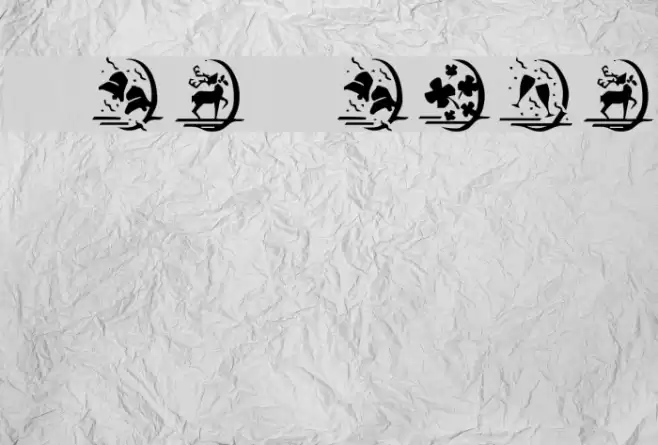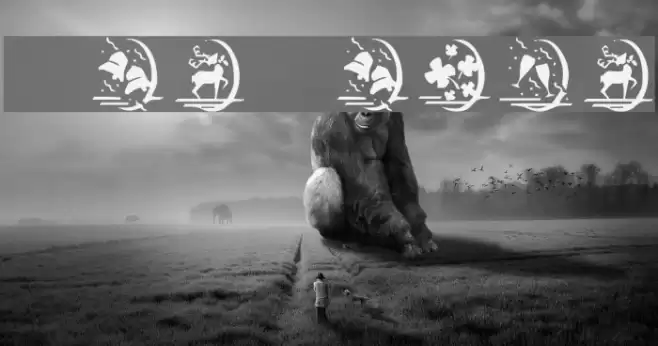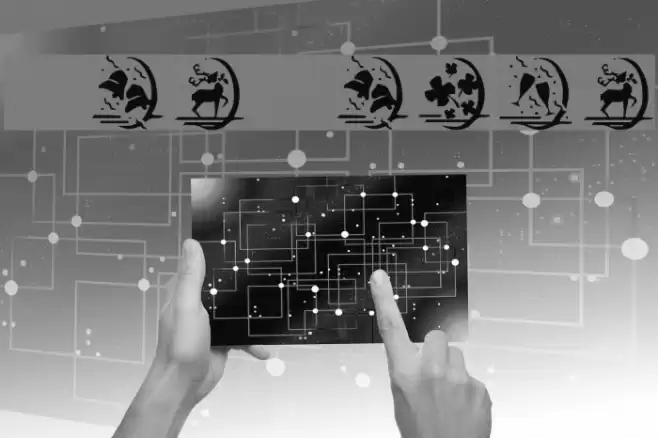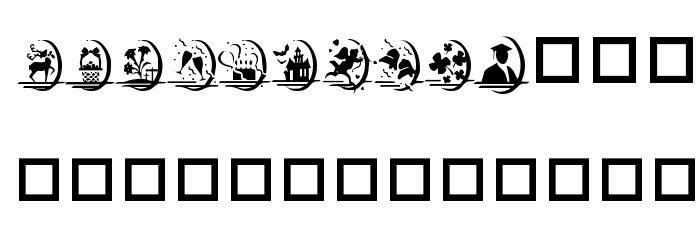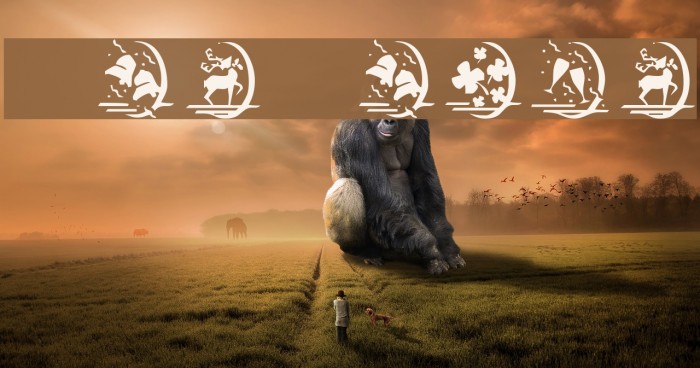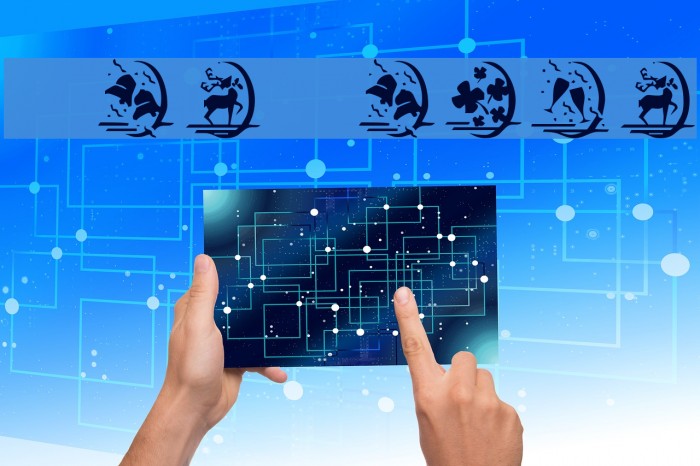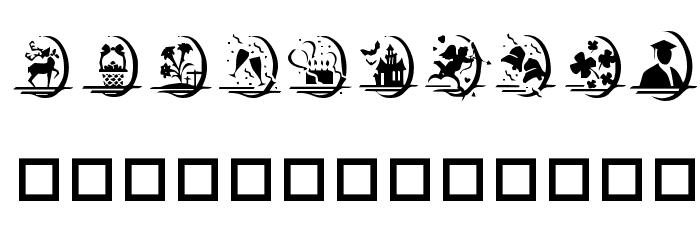
KR Happy Holidays Font
KR Happy Holidays Description
This decorative font features a series of intricate holiday-themed illustrations within circular frames. Each character is uniquely designed with festive elements such as reindeer, snowflakes, holiday bells, and more, creating a whimsical and celebratory feel. The font is highly stylized, focusing on visual storytelling rather than traditional letterforms. The characters are evenly spaced, with each illustration maintaining a consistent size and style, making it ideal for creative and festive projects. The overall design is playful and imaginative, perfect for capturing the spirit of the holidays.
A decorative font with holiday-themed illustrations in circular frames from Uncategorized fonts.
- Proposed Projects: Ideal for holiday cards, festive banners, seasonal event invitations, and creative design projects that require a unique and celebratory touch.
- Use Case: Logos, Headlines, Decorative elements